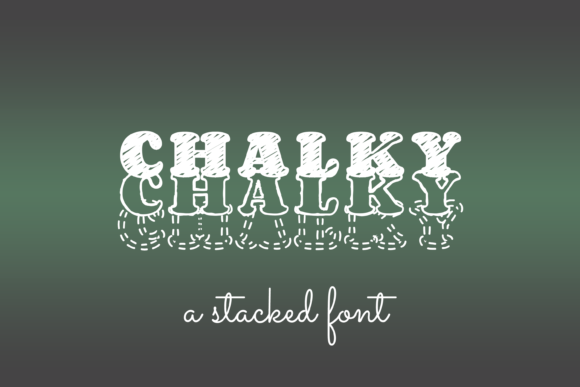
The Perfect Stroke of Creativity: Unleashing the Power of Chalky Font
Have you ever been working on a project, and the perfect font suddenly pops into your mind? It’s like a spark of inspiration that sets your creativity ablaze. For designers, that moment is pure magic. And if you’re anything like me, you’re always on the lookout for that elusive font that adds a touch of whimsy and charm to your work.
Enter Chalky Font, a delightful, hand-drawn typeface that’s sure to bring a smile to your face. This charming font is perfect for custom designs, DIY crafts, and any creation that requires a personal touch. Whether you’re a seasoned designer or a crafty hobbyist, Chalky Font is an amazing choice that will elevate your projects to the next level.
Key Features of Chalky Font
- Unique Characteristics: Chalky Font features a distressed, chalkboard-inspired design, with subtle texture and imperfections that give it a unique and authentic look.
- Font Styles: Chalky Font includes multiple font styles, including Regular, Italic, Bold, and Bold Italic, allowing for a range of visual effects and emphasis.
- Font Width: Chalky Font has a medium to wide font width, making it suitable for use in headings, titles, and other display text.
Chalky Font Review
Overall, I think the Chalky Font has a lot of potential, but it’s not without its flaws. Let’s dive in and see what works well and what doesn’t.
- The Chalky Font has a unique and playful feel to it, which can be perfect for creative projects or branding that wants to stand out.
- The font is highly customizable, with a wide range of options for adjusting the style and layout.
- The font supports a wide range of languages, making it a great option for multilingual projects.
- The font can look a bit rough or unfinished at certain sizes or resolutions, which may be a concern for high-end or professional projects.
- The font’s unique feel can also make it difficult to read in certain contexts, such as in small text or in situations where clarity is crucial.
- The font’s customization options can also be overwhelming for beginners, making it difficult to get started.
Overall, I think the Chalky Font is a great option for creative projects or branding that wants to make a statement. However, it may not be the best choice for high-end or professional projects where clarity and polish are essential.
The Chalky Font is perfect for:
- Creating a vintage or retro look.
- Designing menus or signage for a restaurant or café.
- Adding a playful touch to children’s party invitations or decorations.
For the best results, pair the Chalky Font with bold colors and playful graphics.